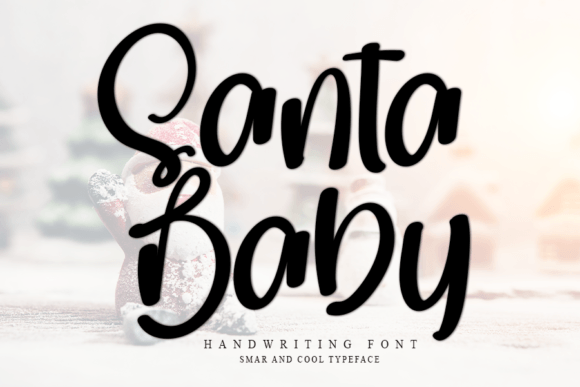
Dive into the world of Santa Baby Font, an enchanting script font family that embodies the spirit of festive celebrations! Whether you're a seasoned designer or just starting your creative journey, let Santa Baby Font be your guiding star.
Step into a world of charm and elegance with Santa Baby Font, the perfect choice for adding a touch of delightful personality to your designs. Its meticulously crafted characters exude a playful yet sophisticated charm, making it the ideal companion for wedding invitations, greeting cards, posters, and any project that calls for a hint of whimsy.
With Santa Baby Font, you'll embark on a typographic adventure, exploring the boundless possibilities of creative expression. Its smooth curves and lively strokes weave together a captivating visual tapestry that will elevate your designs to new heights of artistry. Uncover the hidden magic within the intricate details of each letterform, revealing a captivating story that will leave your audience spellbound.
As you delve deeper into the depths of Santa Baby Font, you'll discover a treasure trove of glyphs and ligatures, accessible through PUA encoding. Unleash your imagination and let your creativity soar as you combine these elements to create stunning compositions that will captivate and inspire.
Santa Baby Font is more than just a collection of characters; it's a gateway to a world of enchanting possibilities. Its versatility knows no bounds, lending itself effortlessly to a myriad of design styles. Whether you're crafting heartwarming wedding invitations, playful posters, or eye-catching social media graphics, Santa Baby Font will effortlessly elevate your creations, leaving a lasting impression on your audience.
So, embrace the magic of Santa Baby Font and embark on a creative journey where imagination meets artistry. Let your designs blossom with the charm and elegance of this captivating font, and watch as your creations come alive with a touch of enchanting beauty.